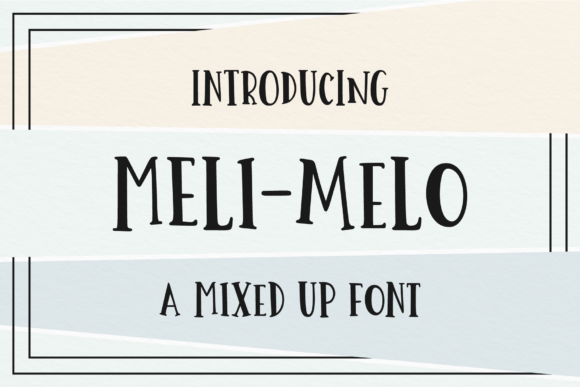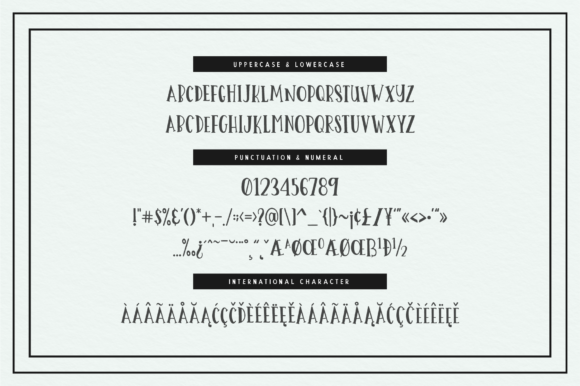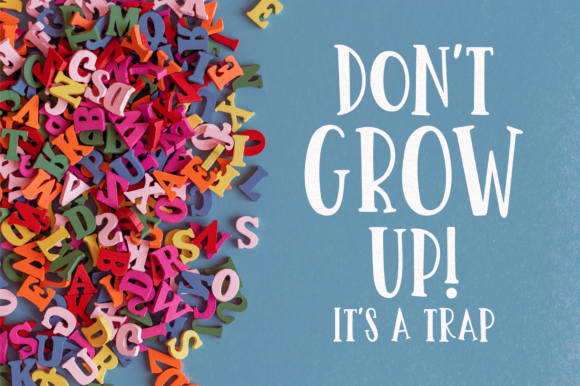
HomeScript FontsMeli Melo Font Script Fonts Meli Melo Font FacebookXPinterestWhatsApp Meli Melo Font Poster 2 Meli Melo Font Poster 3 About Meli Melo Font The Meli Melo is a mixed up font with a clean, yet striking look. DOWNLOAD ON CREATIVE FABRICAThis font is sold and delivered by Creative Fabrica. Font Canyon may earn a commission if you buy through this link. People also explored Bartholomew Font Fraulein Revival Font Nighttime Font Gatiya Script Font Best Valentina Font Monotone Font Moog Brother Font Astogria Bejha Font 358 0 TagsMeli Melo Font Previous articleAdventurous FontNext articleDelaras Font LEAVE A REPLY Cancel reply Comment: Please enter your comment! Name:* Please enter your name here Email:* You have entered an incorrect email address! Please enter your email address here Website: Save my name, email, and website in this browser for the next time I comment. Personal Use Free Knucklehead Personal Use Free Read more about this font Baveuse Personal Use Free Read more about this font BD Nokio Personal Use Free Read more about this font Haris Wood Personal Use Free Read more about this font BLOG How to Cut Any Font on Cricut: Convert a Font to SVG (Free) Turn any font into a clean SVG so it cuts crisp on Cricut - a quick 3-step workflow using a free font-to-SVG tool. Fonts That Capture the Spirit of New York City Free vs Paid Fonts: Why Investing in Premium Fonts Is Worth It Modern Sans-Serif Fonts That Brands Love in 2025